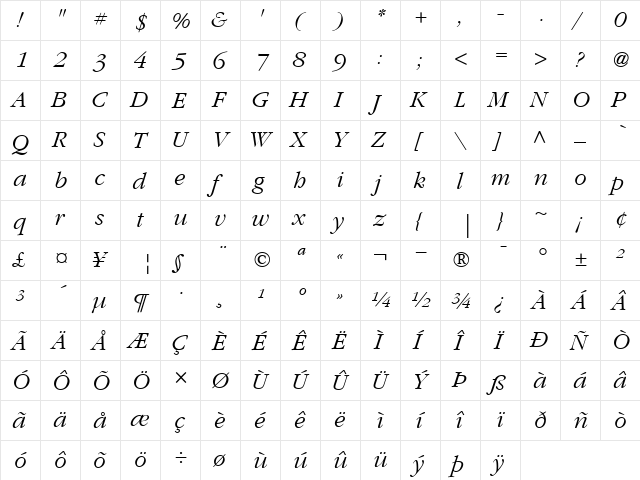
ITCGaramond-Light LightItalic Font Preview
ITCGaramond-Light LightItalic
ITCGaramond-Light LightItalic Font Details
Design Context for ITCGaramond-Light Typeface
ITCGaramond-Light is a composed and adaptable typeface that performs quietly and consistently across a wide range of design contexts. Its italic angle brings a sense of urgency and motion to the letterforms. Its slender proportions lend an understated elegance to any composition.
Pro Tip: Use ITCGaramond-Light for emphasis, pull quotes, and subheadings where its slanted energy can add rhythm to the layout.